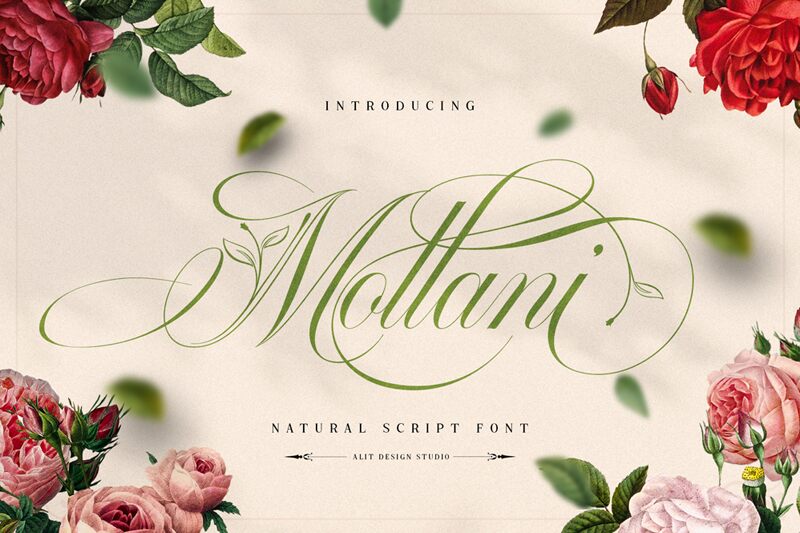
Mollani Regular
Mollani font by Alit Design is a sophisticated script with ornamental flourishes and decorative elements. Expressing an elegant style, the free calligraphy font has a luxurious impression which is amplified by its condensed structure and light weight.
Express the intended level of grandeur and uniqueness with Mollani in wedding invitations, logos, fashion branding, greeting cards, merchandise designs, diploma certificates, posters, digital posts, printed magazines, newspapers headings.